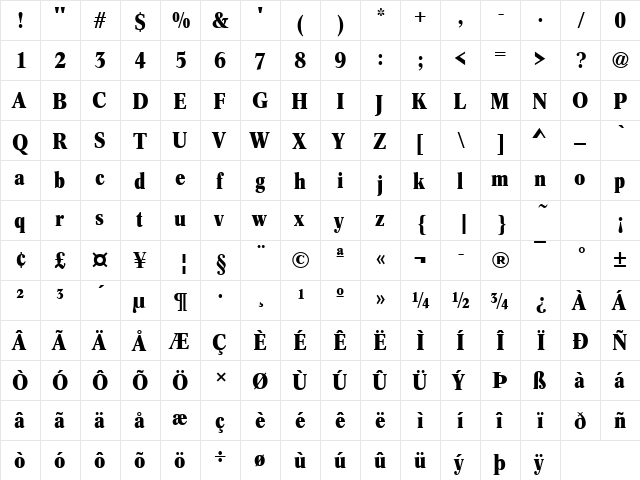
URWCordeliaTCon Bold
Design Context for URWCordeliaTCon Typeface
URWCordeliaTCon is a composed and adaptable typeface that performs quietly and consistently across a wide range of design contexts. The heavy weight commands attention and anchors typographic hierarchies.